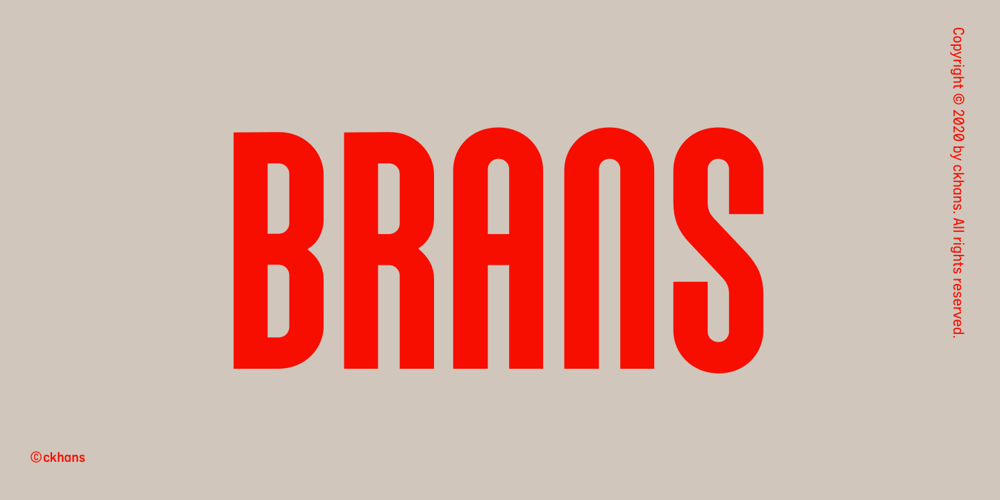
Brans Font Family was designed by Changki Han and published by Ckhans Fonts. Brans contains 16 styles and family package options. Brans family consists of 18 styles (9 weights, 9 Italics), in each of which there are more than 543+ glyphs. In the typeface, each weight includes extended language support, fractions, tabular figures, ligatures, arrows and more. Perfectly suited for graphic design and any display use. Support for 28 languages:Afrikaans Albanian Catalan Croatian Czech Danish Dutch English Estonian Finnish French German Hungarian Icelandic Italian Latvian Lithuanian Maltese Norwegian Polish Portugese Romanian Slovak Slovenian Spanisch Swedish Turkish Zulu